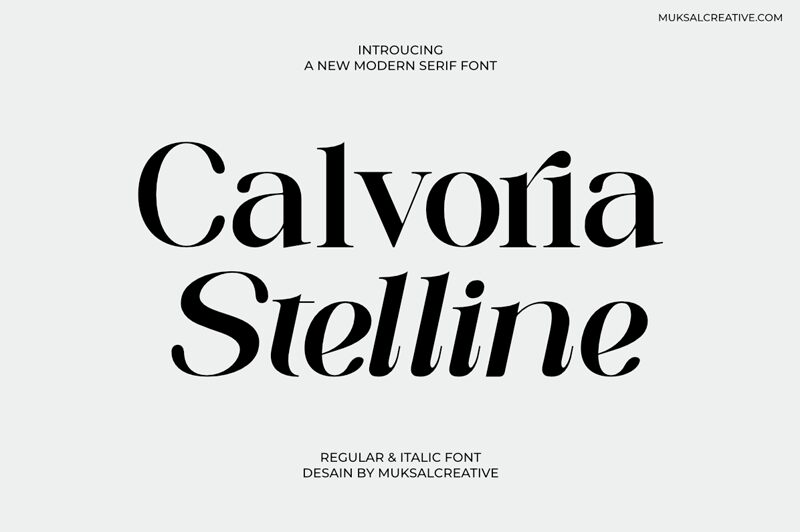
Calvoria Stelline font by Muksal Creative is an elegant, free serif font. This sophisticated and modern typeface combines stylish refinement and contemporary aesthetics, making it a great addition to countless projects. Its dramatic appearance converges with harmonious shapes to create a beautifully balanced font for exquisite displays.
Calvoria Stelline is especially suited for branding, fashion, and editorial design applications. It can also be used in packaging, logotype, websites, digital applications, labels, posters, magazines, novels, invitations, greeting cards, photography, social media posts, stationery, marketing, business cards, and more.